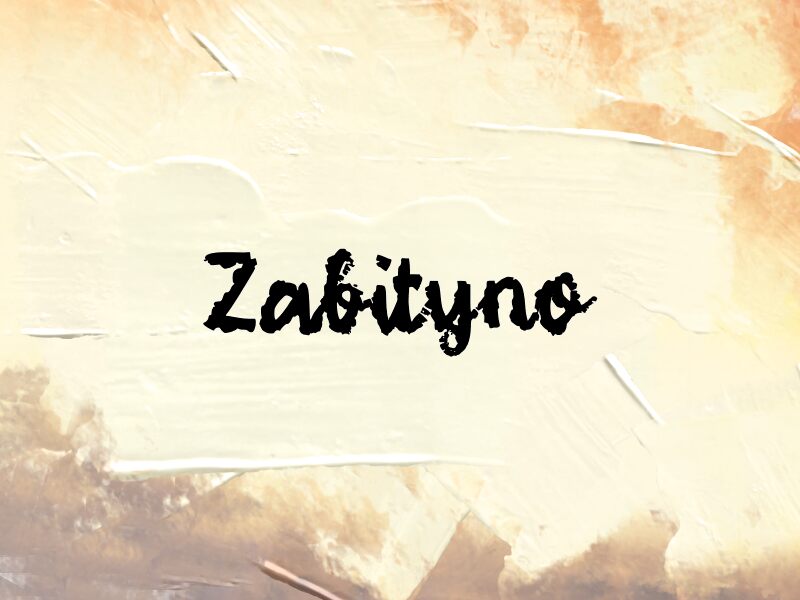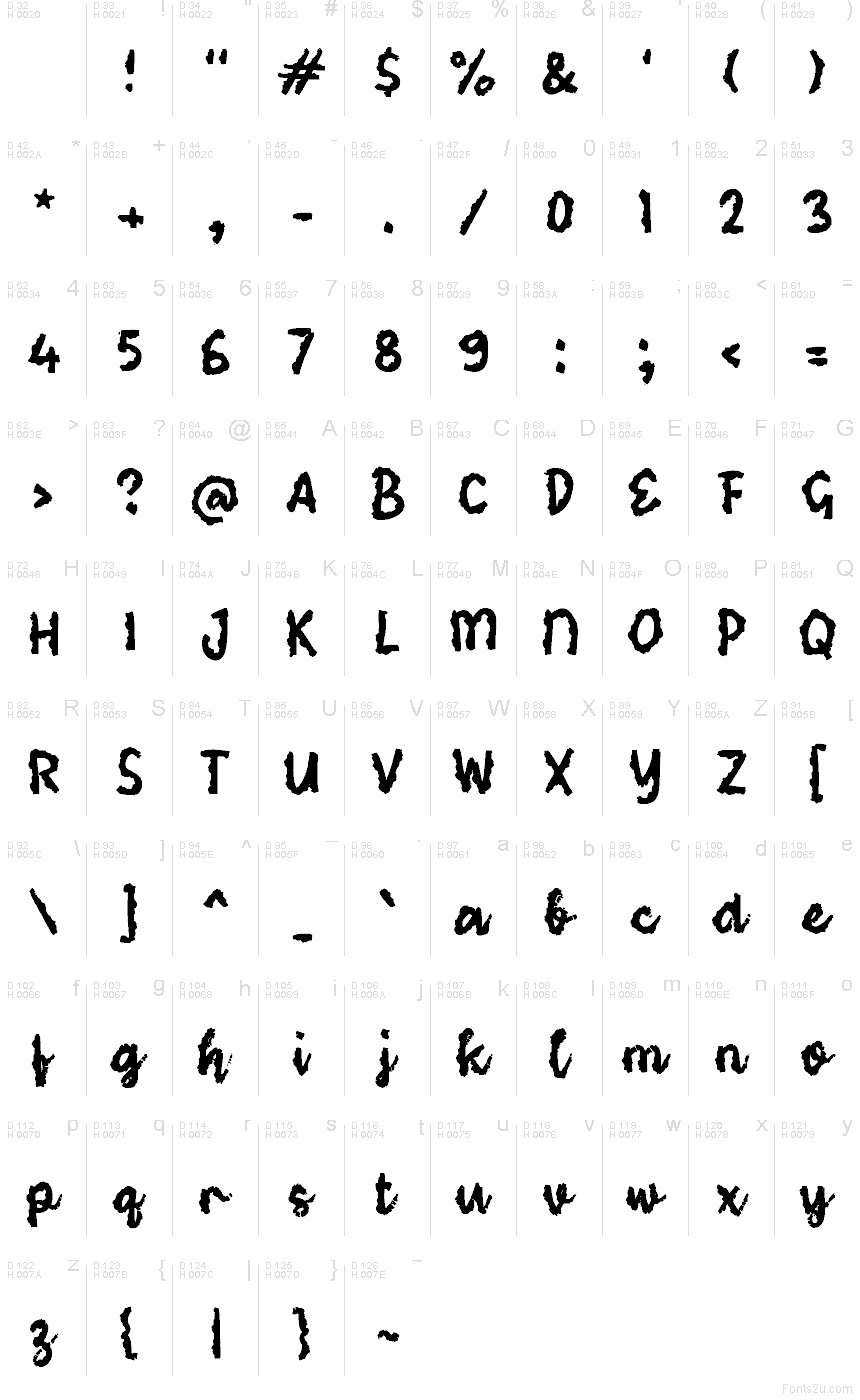
Zabityno
Zabityno, by Wep, is a free trash display font with a raw, cut-and-torn energy. The letters look hacked from inked paper or worn stencil scraps, with ragged edges, chunky joins, and a restless silhouette that makes the whole word feel noisy and handmade.
It suits poster work, underground music flyers, zine covers, horror title cards, and merch graphics where a clean finish would feel wrong. As a free font, Zabityno also works for short headlines, logo sketches, and branding accents that need a scuffed, street-made bite rather than a neat studio polish.